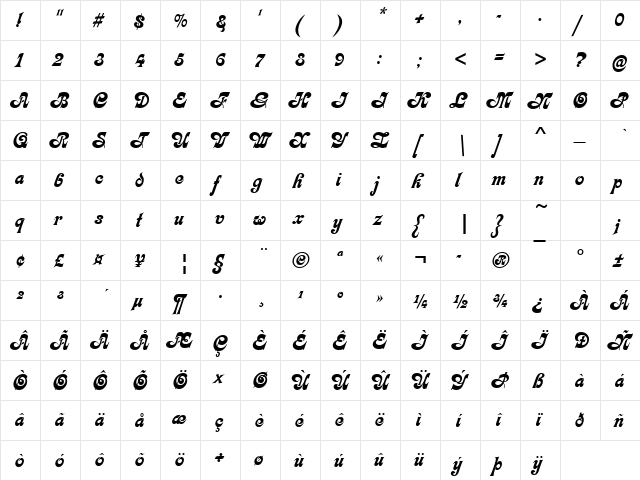
URWKelvinD Regular
Design Context for URWKelvinD Typeface
URWKelvinD is a composed and adaptable typeface that performs quietly and consistently across a wide range of design contexts.